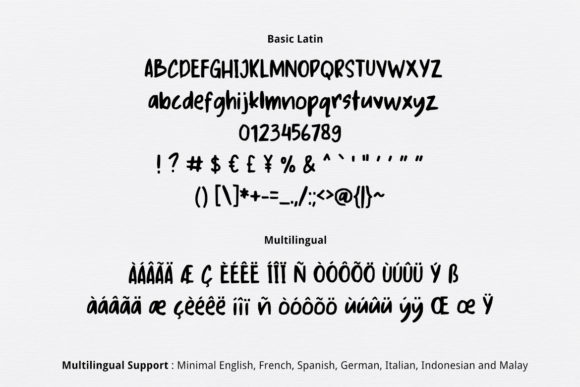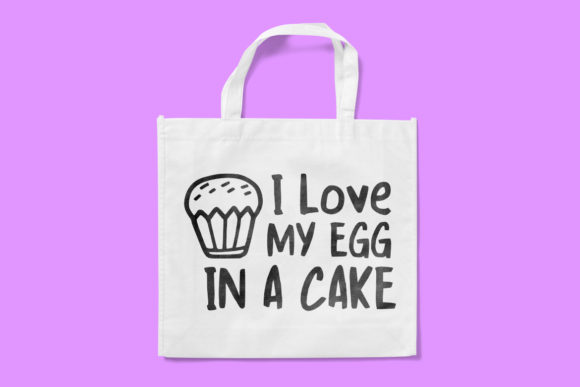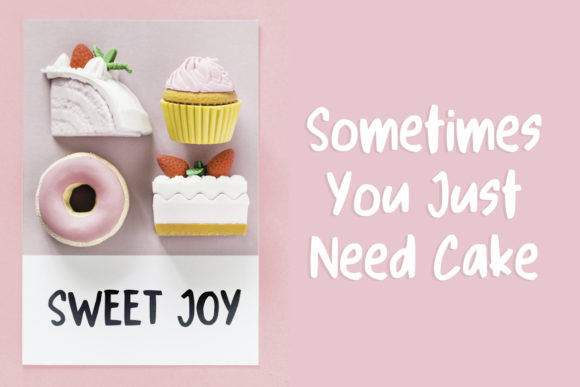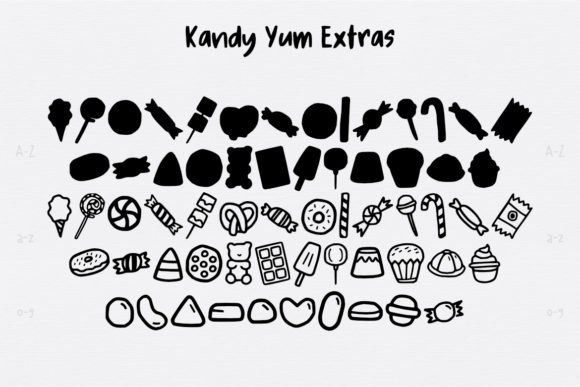
Introduction to Kandy Yum Font
Kandy Yum is a deliciously playful display font with a cute twist.
Fall in love with its modern charm .
Key Features of Kandy Yum Font